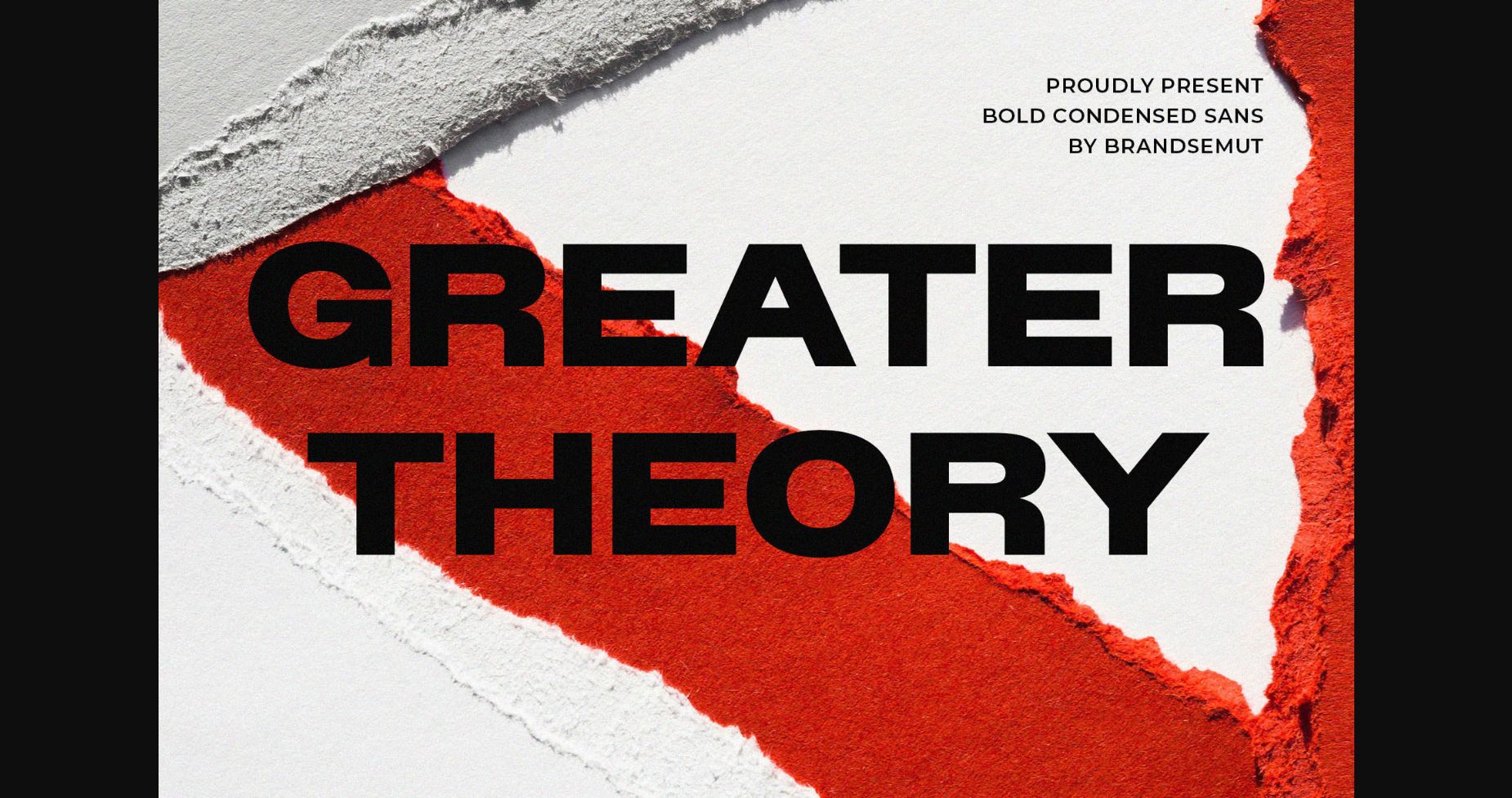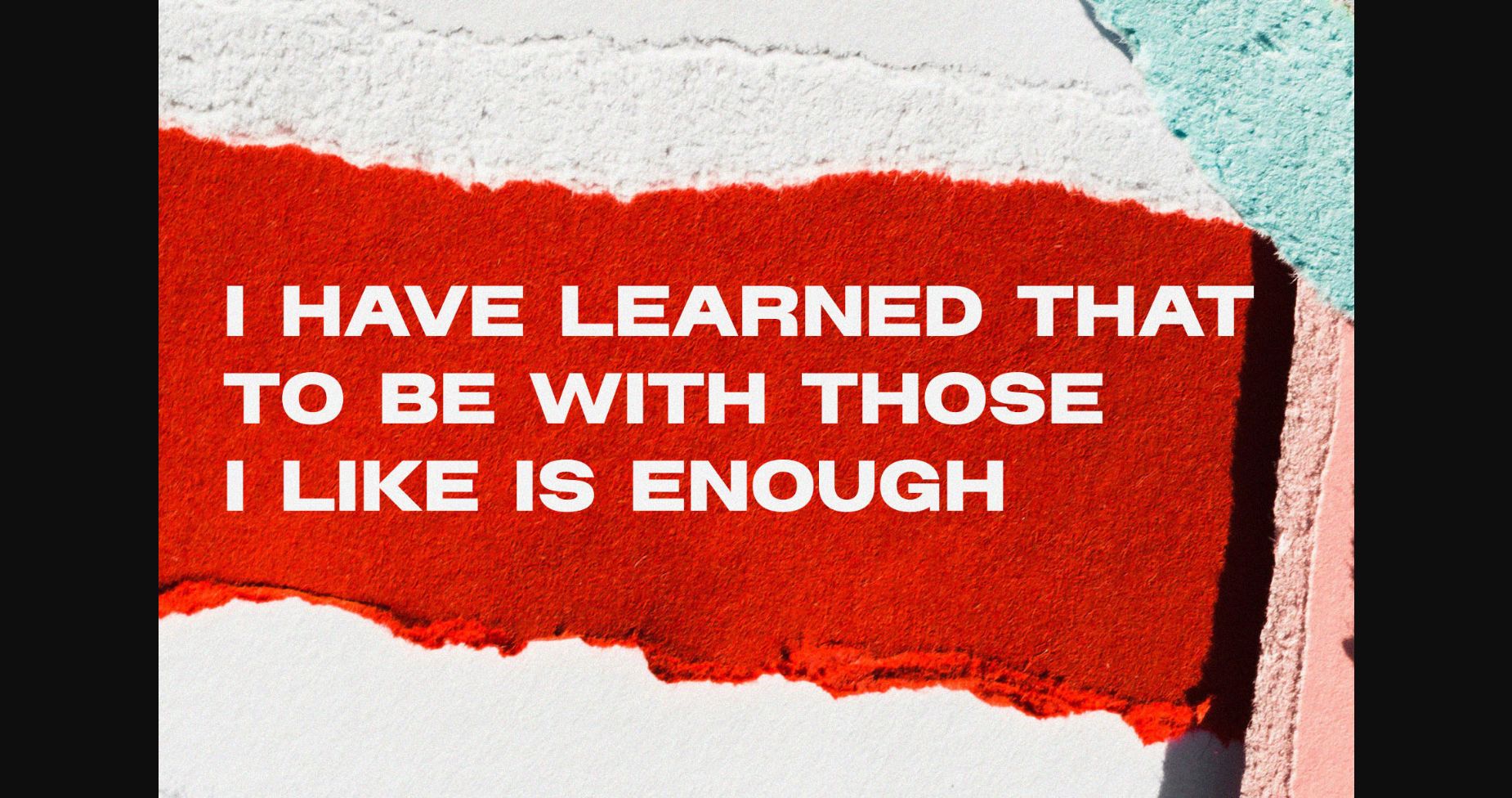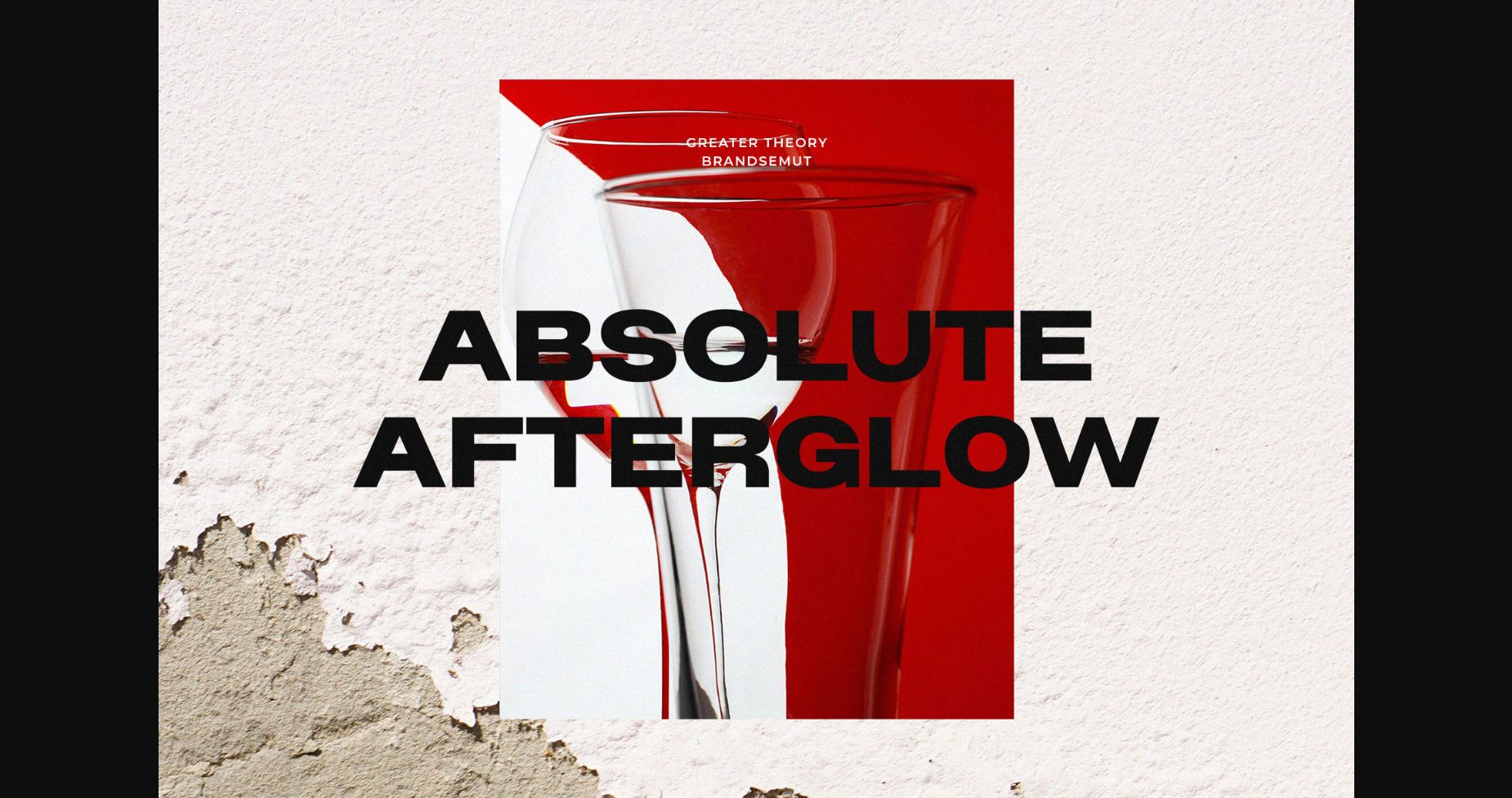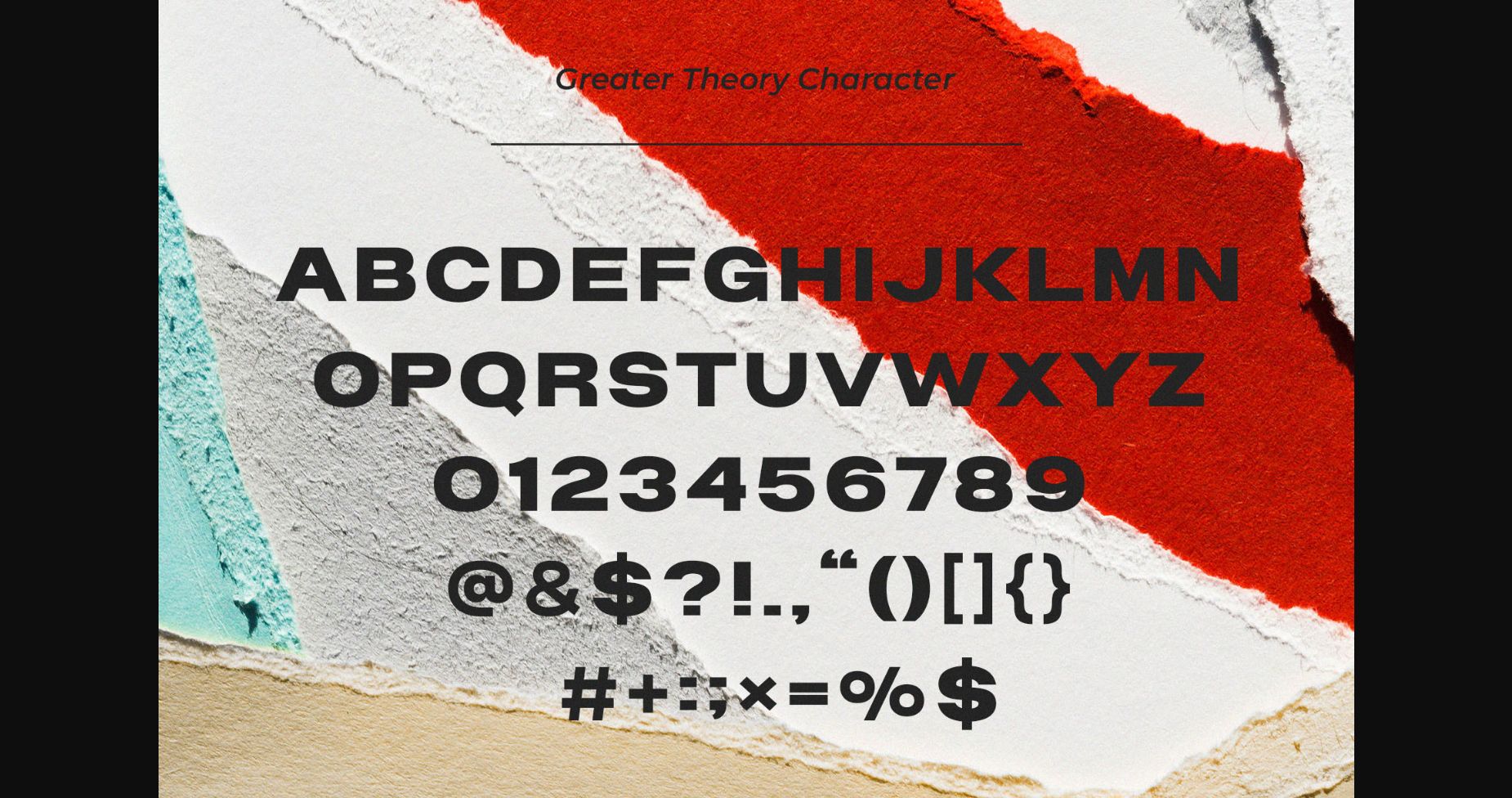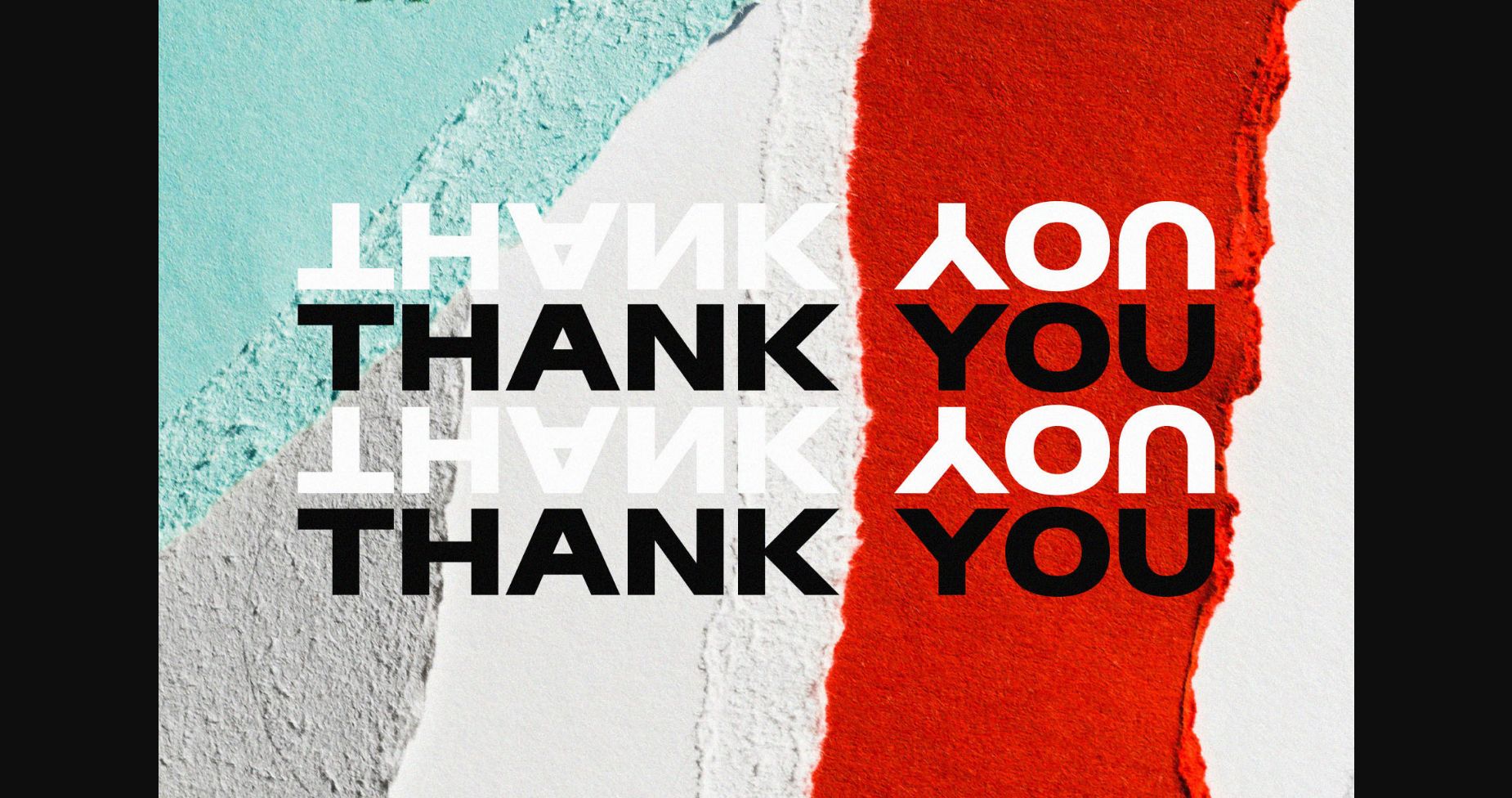
About Greater Theory Font
Introducing Greater Theory Bold Condensed Sans
Greater Theory is a modern and simple font, best used as a display for headings, logos, branding, magazines, product packaging, and invitations. Greater Theory comes with clean lines and smooth curves giving any project an extra touch of class.